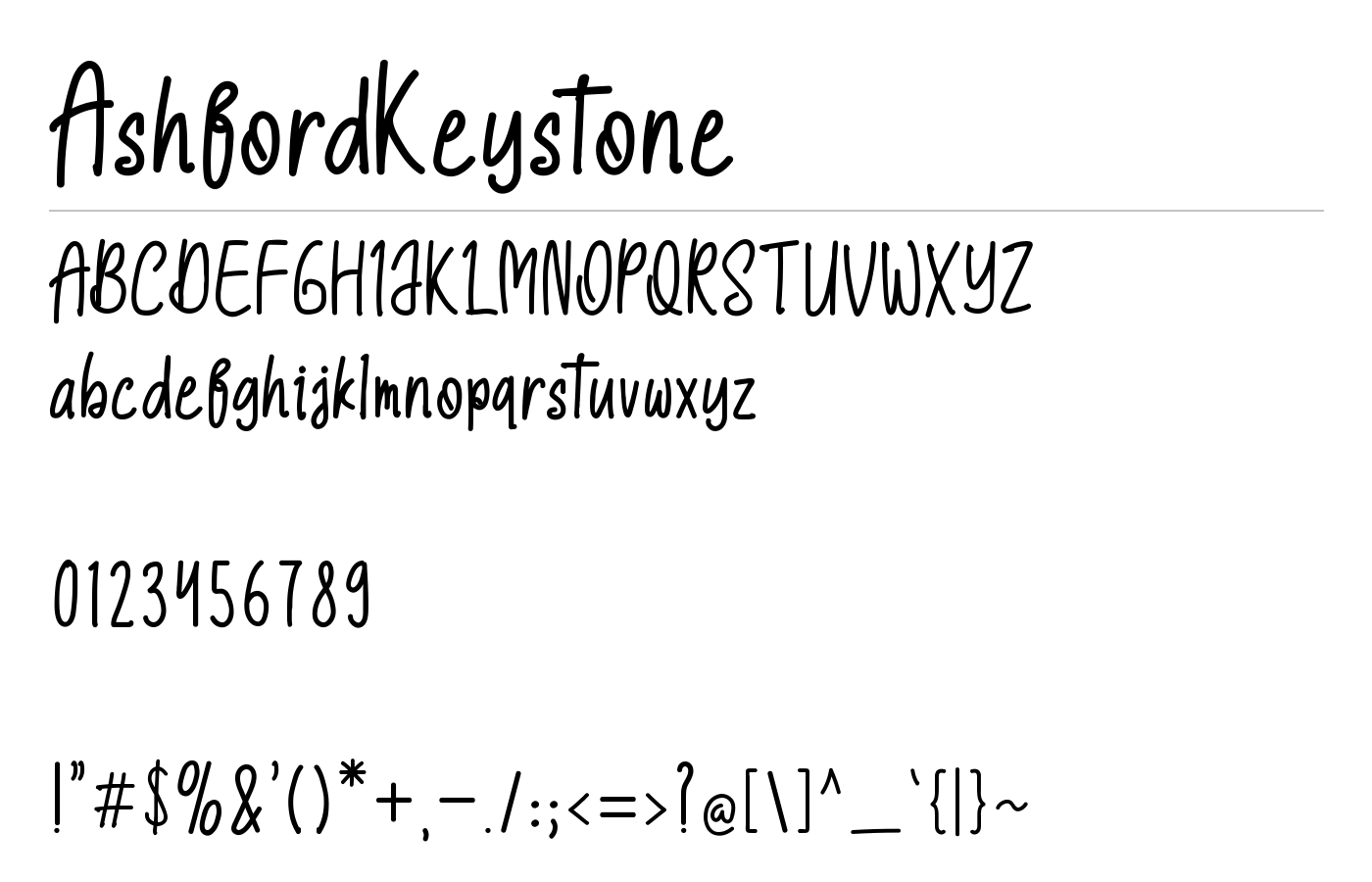
AshfordKeystone is a playful, hand-drawn sans serif font with a casual and friendly personality. Its tall, narrow letterforms with slight irregularities give it a handmade feel, making it ideal for creative projects, informal branding, and personal stationery that want to convey warmth and approachability. This font works well for headlines and invites, adding a charming, unique touch without sacrificing readability.
AshfordKeystone Font
About AshfordKeystone Font